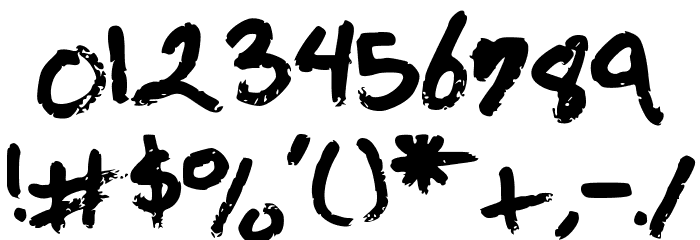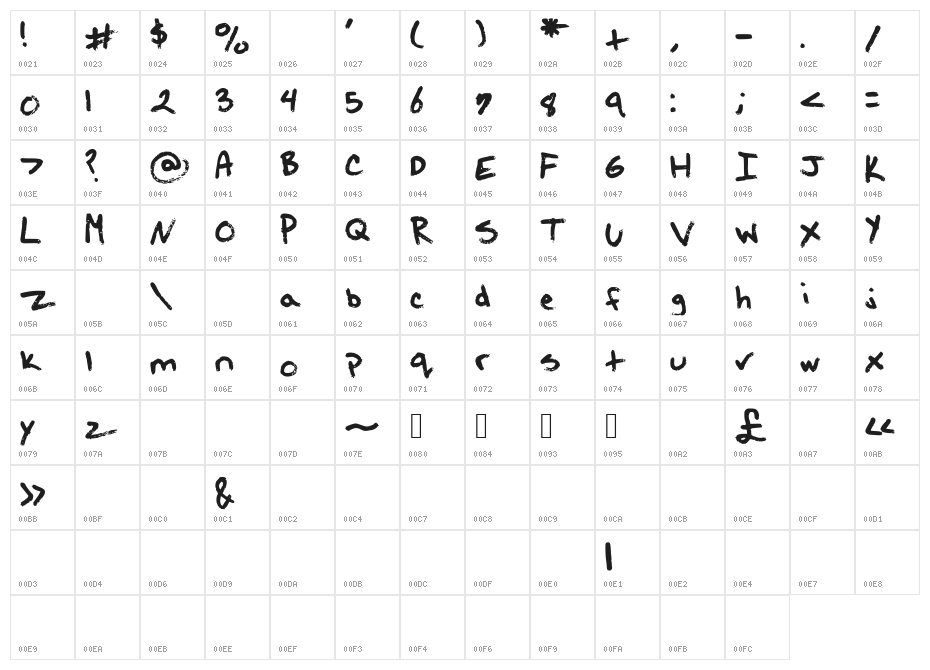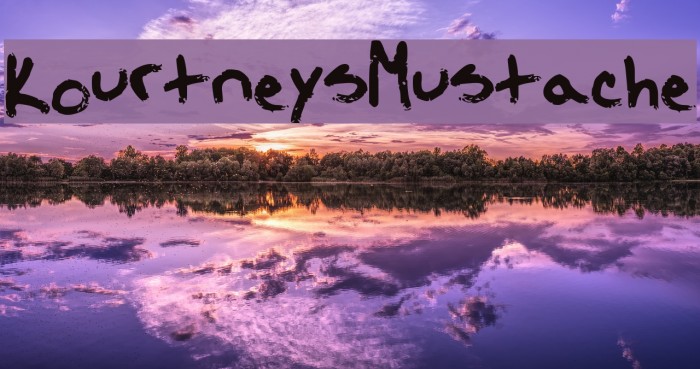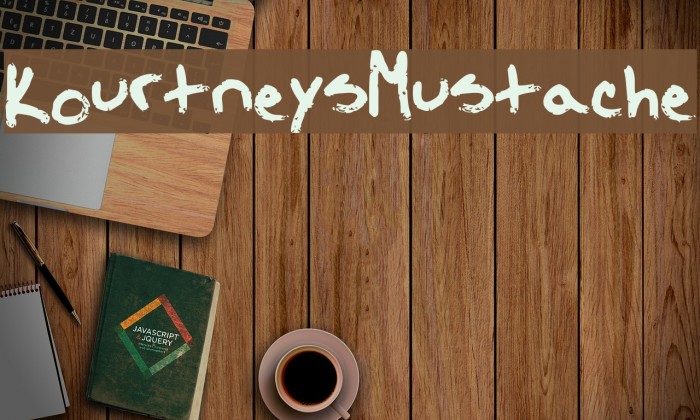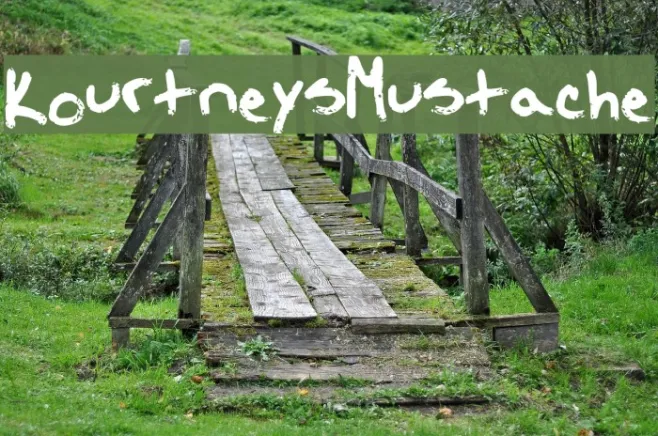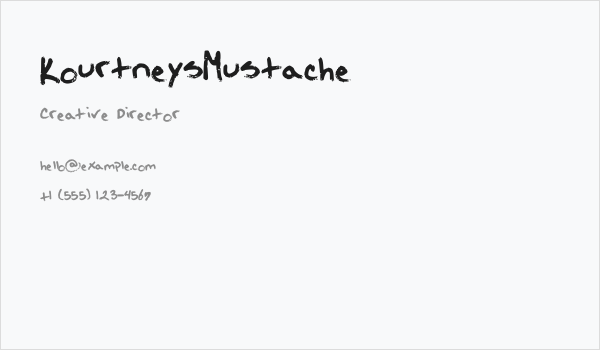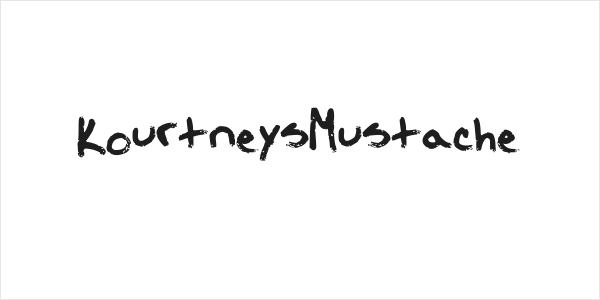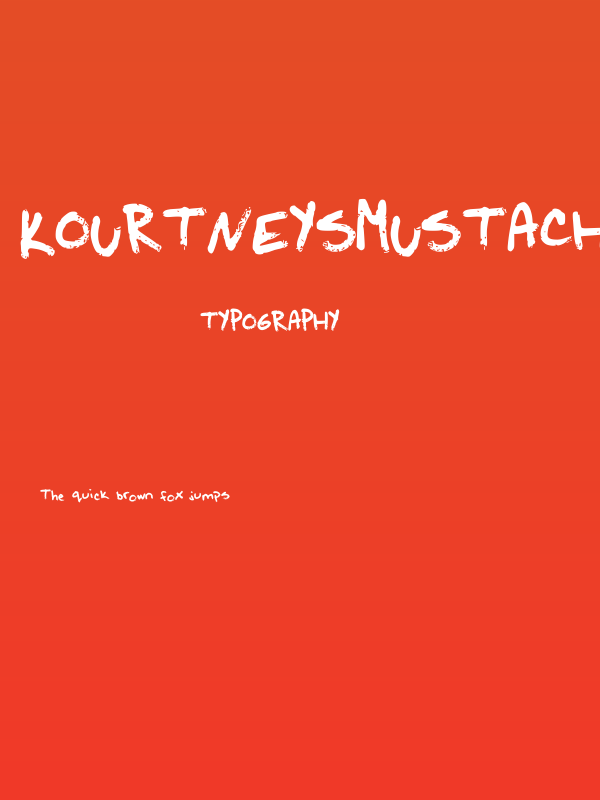
KourtneysMustache Font
KourtneysMustache Description
This font features a bold, expressive style with a hand-drawn appearance. The letters are irregular and have a textured, brush-like quality, giving them a dynamic and energetic feel. The strokes are thick and uneven, contributing to a raw and organic aesthetic. The uppercase and lowercase letters maintain a consistent style, while the numbers and special characters are equally bold and impactful. This font's unique character makes it stand out, ideal for projects that require a personal and artistic touch.
| Proposed Projects | Ideal for artistic projects, posters, album covers, and any design needing a bold, personal touch. |